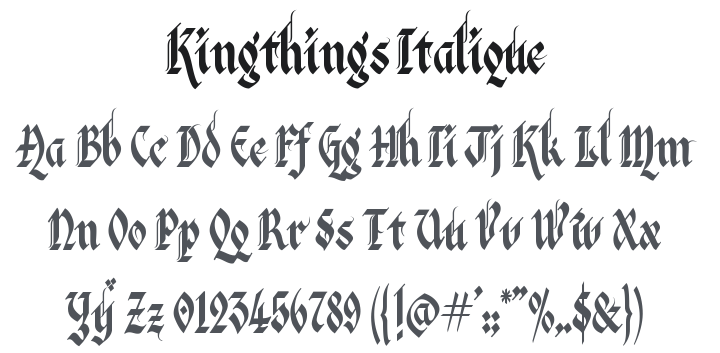
Kingthings Italique Font
About Kingthings Italique
Again this is based on a calligraphic hand that I evolved from those I learned at school. I wanted to do this one just for me as I like the spiky look of it when set as solid text.